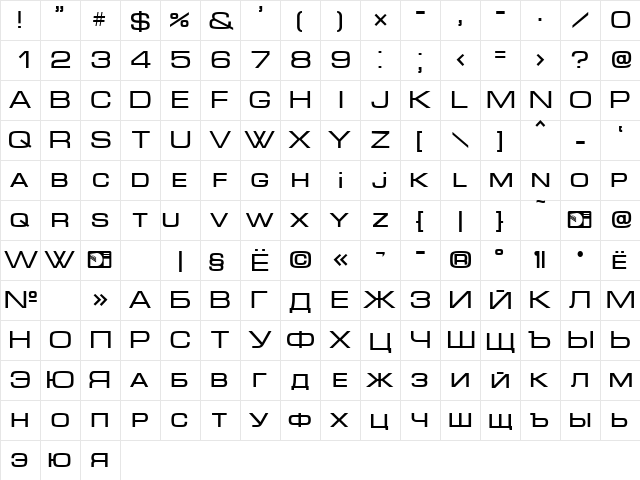
MicraDi Regular Font Preview
MicraDi Regular
MicraDi Regular Font Details
Design Context for MicraDi Typeface
MicraDi takes a measured approach to typography — its balanced proportions and neutral character make it a reliable workhorse for both digital and print work.